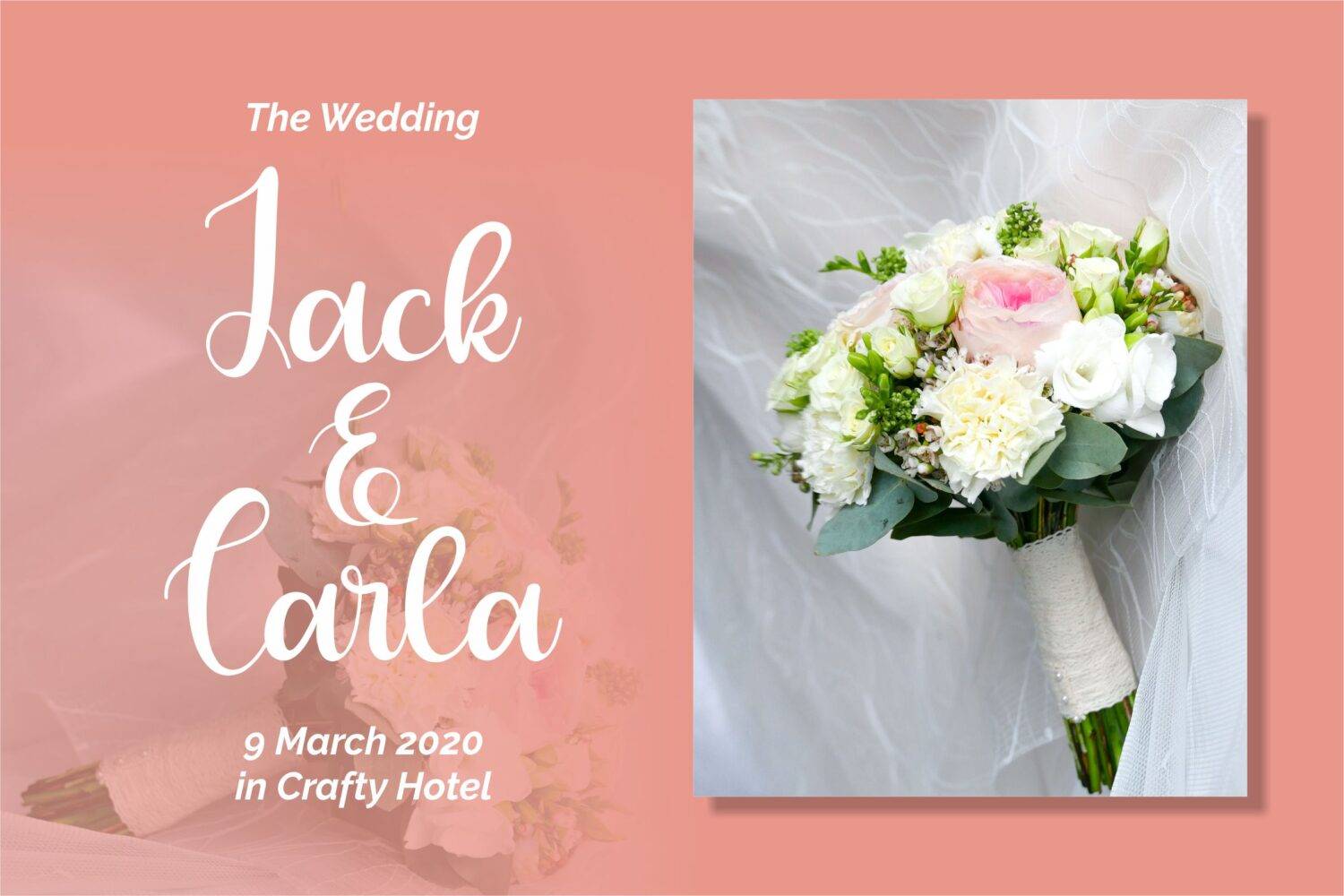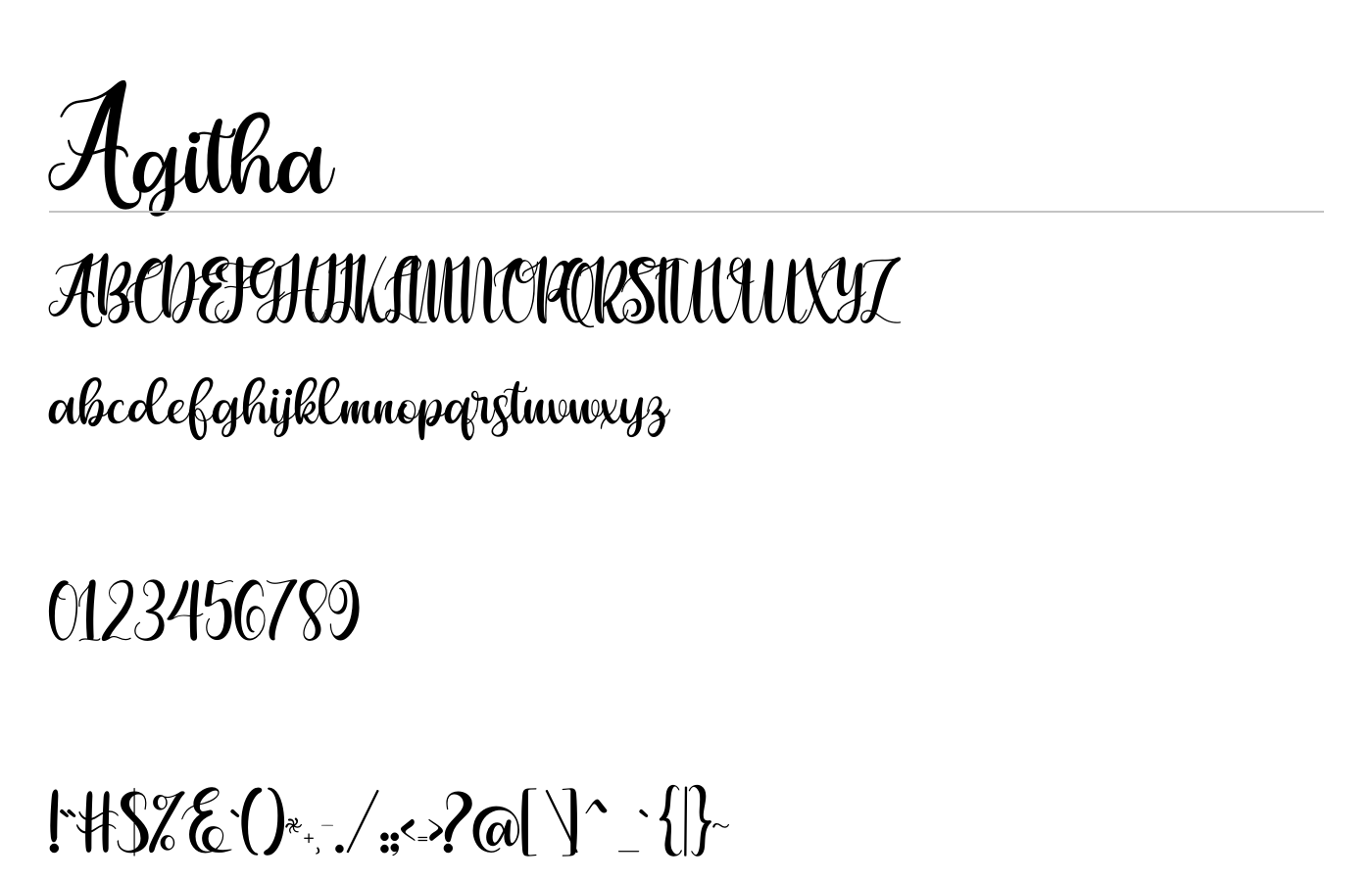
Agitha is an elegant script font featuring a smooth, flowing style with a medium weight and narrow width that gives it a refined and graceful appearance. Its letterforms have a delicate contrast between thick and thin strokes, accented by distinctive swashes and curls that add a charming, handcrafted feel ideal for stylish branding, invitations, and feminine design projects. This font works beautifully in headlines and logos where a touch of sophistication and personality is desired.
Agitha Font
About Agitha Font
| Font family | Agitha Font |
| Designer | Awan Senja 2020 Team |